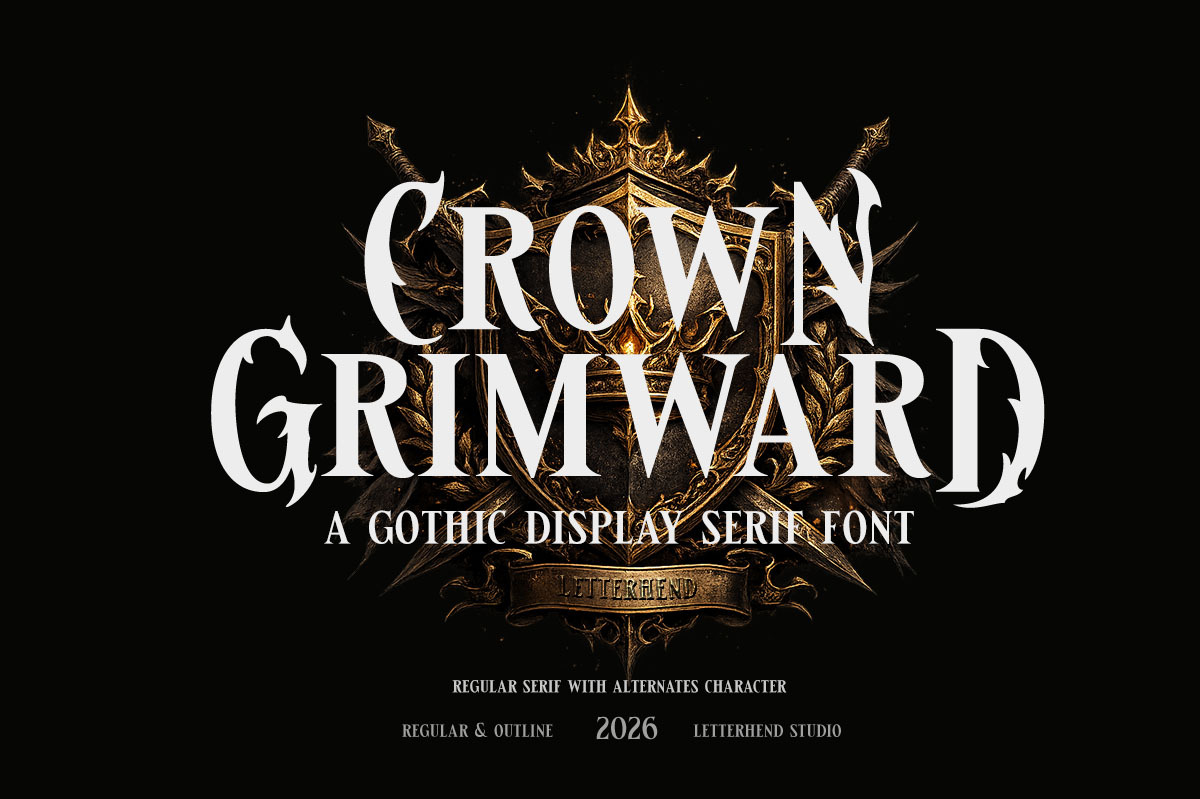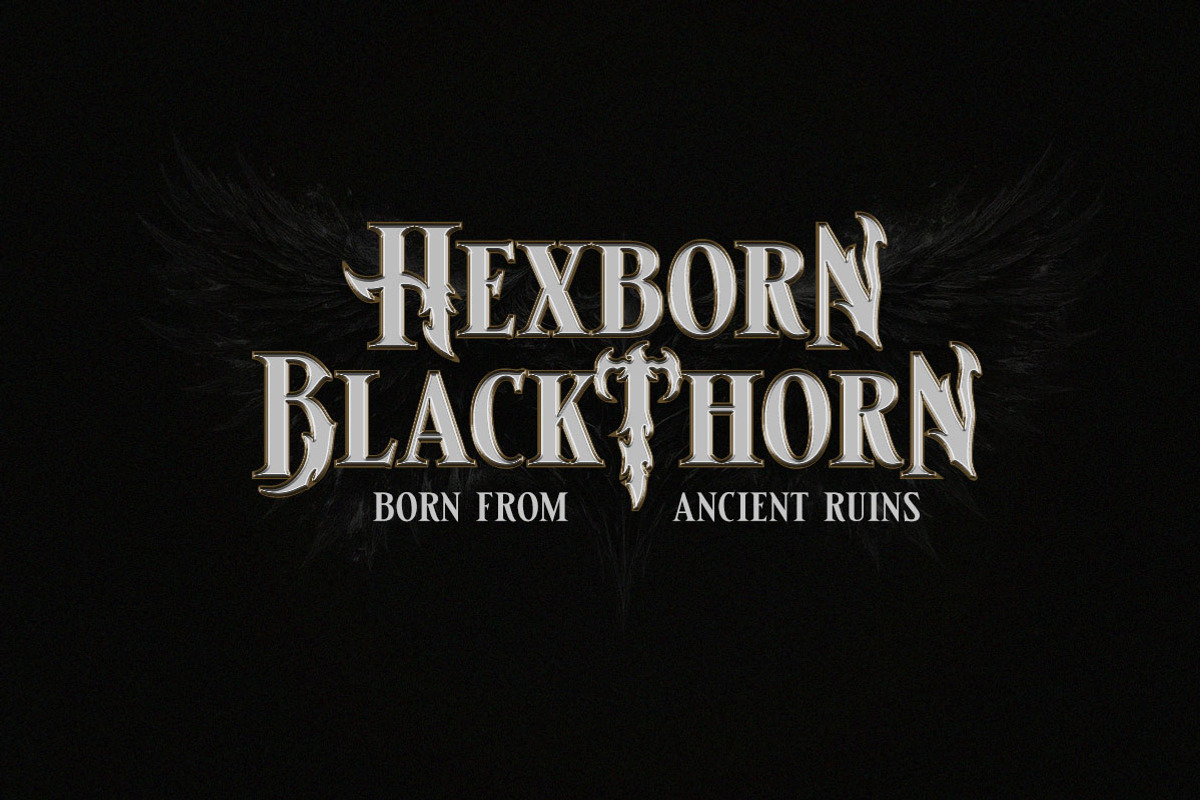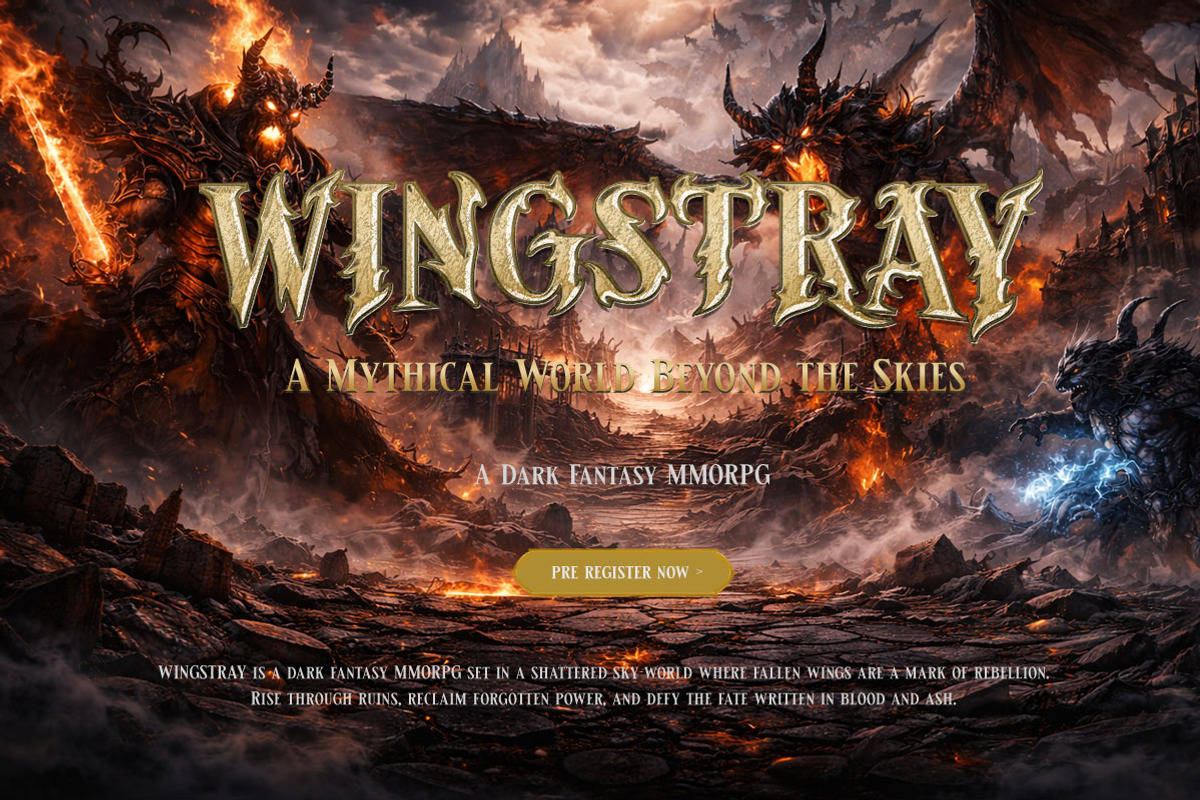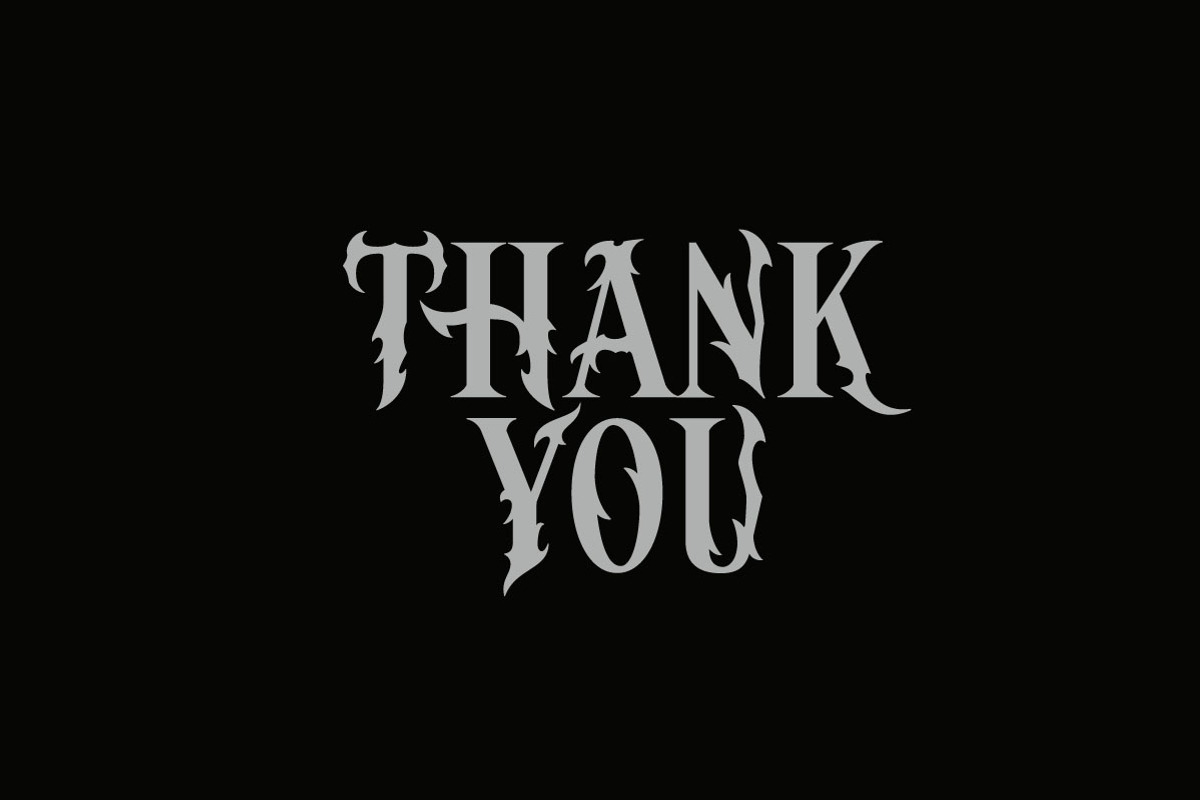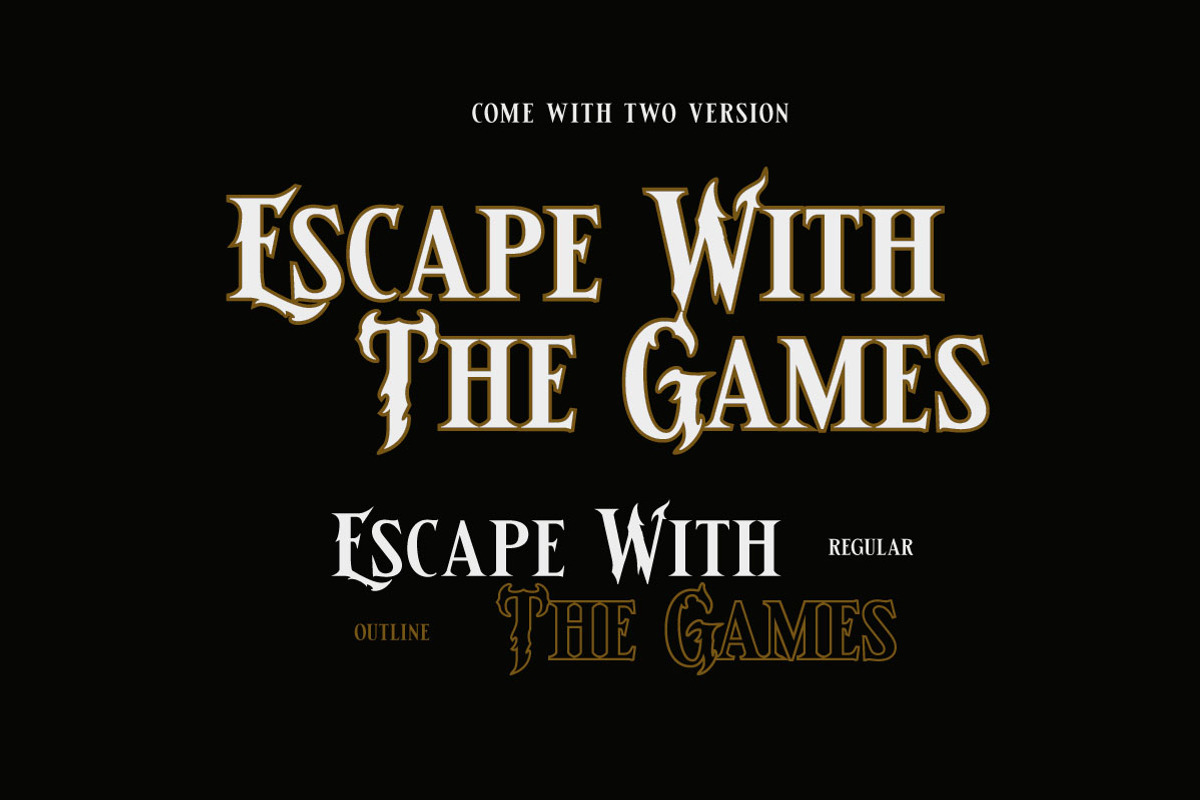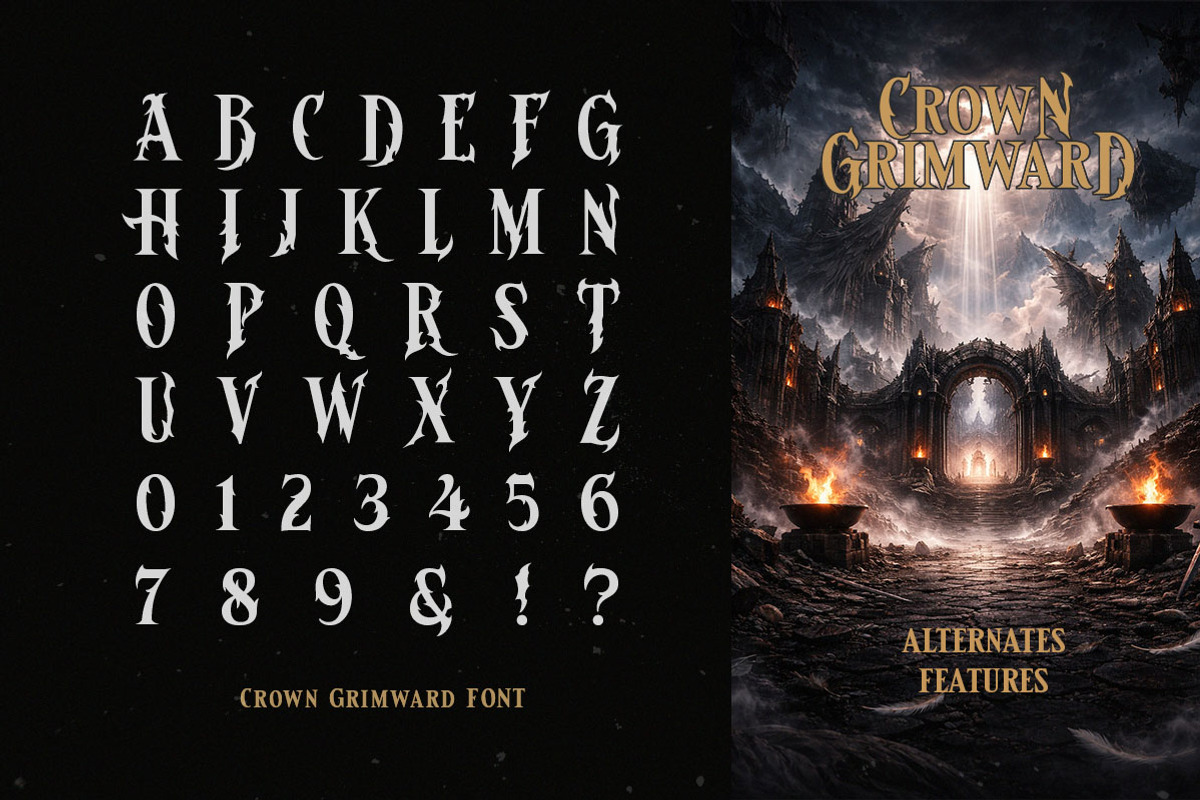
Crown Grimward Gothic Display Font
Designed for massive gothic games, Crown Grimward delivers a dark, dramatic serif style with a strong medieval soul. the letters feel heavy and commanding, creating an intense and immersive atmosphere. ideal for game titles, fantasy game branding, cinematic posters, and epic headers. Features :